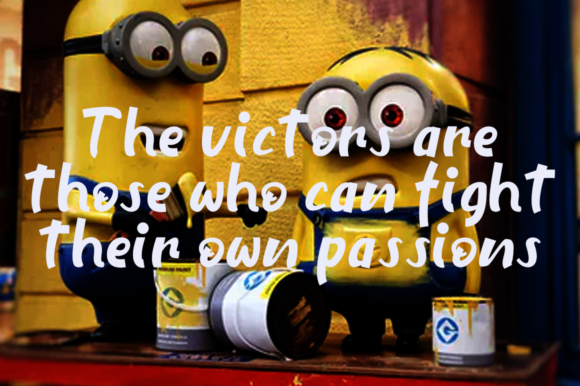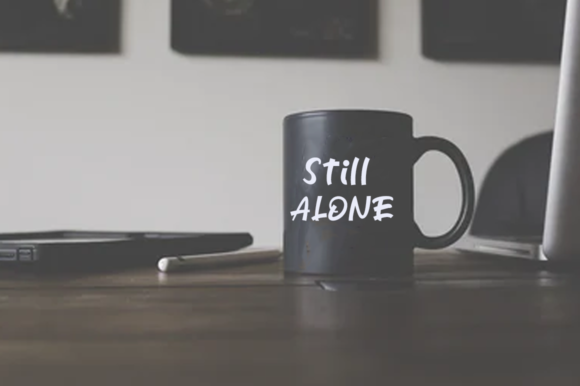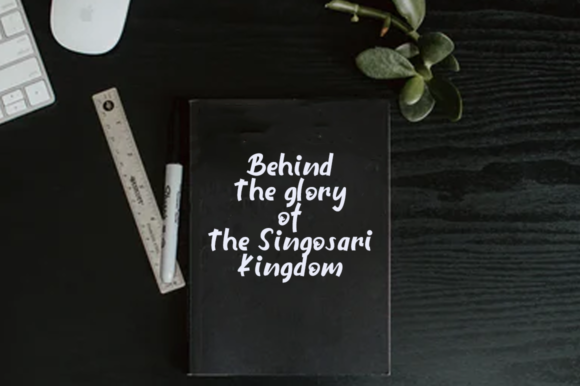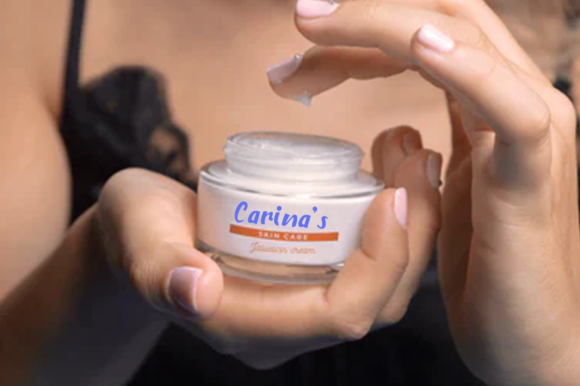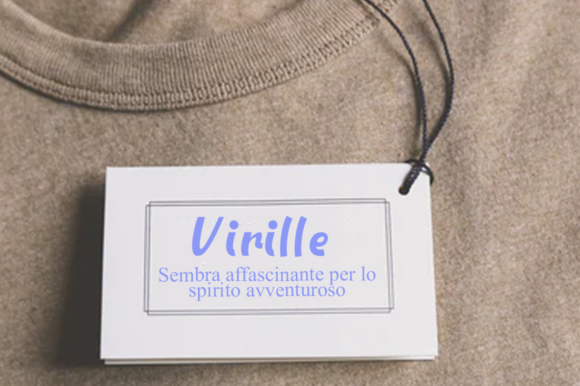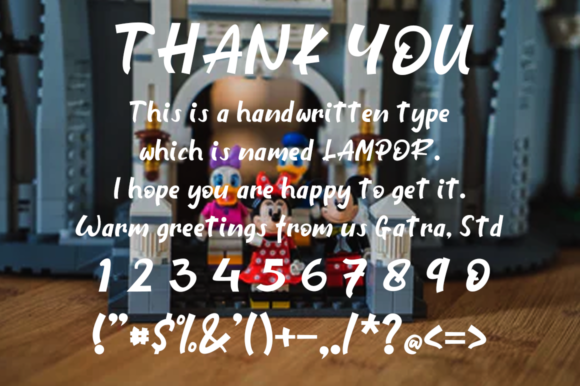
Introduction to Lampor Font
Remember that moment when a font sparks a creative idea, and you can’t wait to bring it to life? For designers, finding the perfect font can be the difference between a good design and a great one. It’s a feeling we’ve all experienced at some point, and it’s exactly what we’re about to dive into with the Lampor Font.
| 👤 Author | Gatra Std |
As a bold and street-styled display font, Lampor Font is the perfect addition to any design resource. Its cool, edgy look is sure to appeal to a wide range of creative projects, from eye-catching titles and letterheads to unique stationery. Whether you’re working on a personal project or a professional design, having access to high-quality fonts like Lampor Font can make all the difference.
Lampor Font
- Unique, hand-drawn design suitable for creative projects requiring a personal touch.
- Includes a transparent background option for seamless integration into various design elements.
- Perfect for designers and artists working on various creative projects, including branding, graphics, and typography.
Honest Review: Lampor Font
I recently came across the Lampor Font while searching for a free design resource for a creative project, and I must say it caught my attention. The font is a beautiful addition to any design, offering a unique and elegant style that’s perfect for a wide range of applications.
Here are some of the things that work well with the Lampor Font: ✨
- High-quality design: The font is well-designed, with crisp lines and a clean aesthetic that makes it perfect for both digital and print media.
- Transparent background: The font’s transparent background makes it easy to overlay on any image or background, giving you complete creative control.
However, there are a few limitations to keep in mind: ⚠️
- Limited character set: The font only includes a limited character set, which may not be suitable for longer texts or complex designs.
- Not suitable for body text: While the font is great for headings and titles, it may not be the best choice for body text due to its unique style and limited legibility.
Overall, the Lampor Font is a great addition to any designer’s toolkit. While it may have some limitations, its unique style and high-quality design make it a great choice for creative projects that require a touch of elegance and sophistication.
Tips for Getting the Most Out of Lampor Font
Experiment with different font sizes and styles to create visually appealing designs. Use Lampor Font with a transparent background to add depth and dimension to your designs. Combine it with other design elements to create unique and eye-catching visuals.
Lampor Font is suitable for a wide range of design projects, including brochures, flyers, posters, and social media graphics. It’s also perfect for creating logos, branding materials, and web design elements.